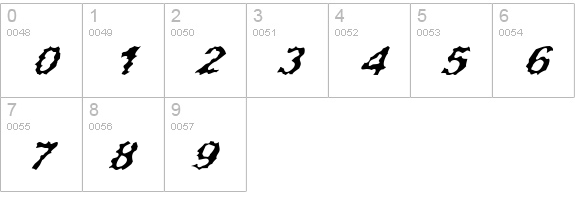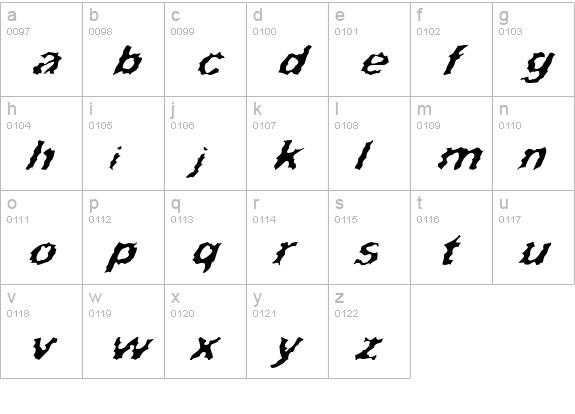
Surf Punx Italic is a distinctive, italic variant in the Surf typeface family \xE2\x80\x94 well suited to design and typography projects.
Surf Punx Italic font is a dynamic and energetic typeface that encapsulates the rebellious spirit of punk culture with a touch of laid-back coastal vibes. Its slanted and stylized characters exude a sense of movement and edginess, perfect for conveying a sense of adventure and individuality in your designs. Whether you're working on posters, album covers, or branding materials, Surf Punx Italic font will add a cool and unique flair to your projects. Best of all, Surf Punx Italic font is available for free download at FontsMarket.com. This means you can easily access this striking typeface and incorporate it into your creative work without any cost. Embrace the freedom of expression and creativity with Surf Punx Italic font, and make a bold statement with your designs today.